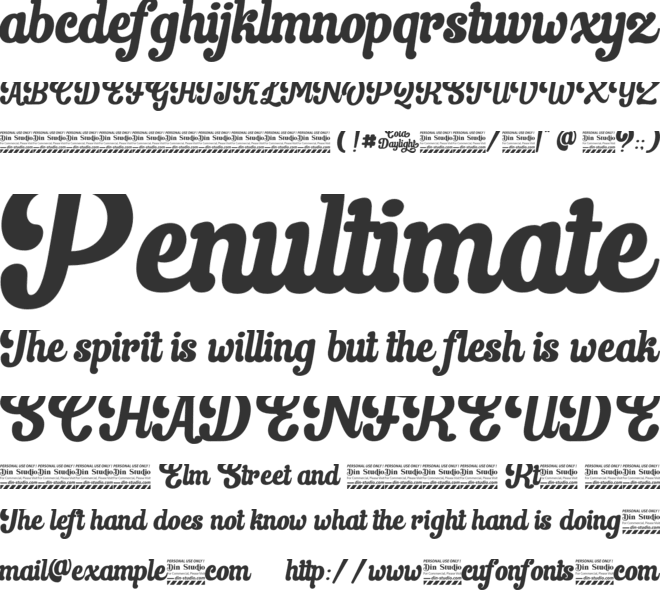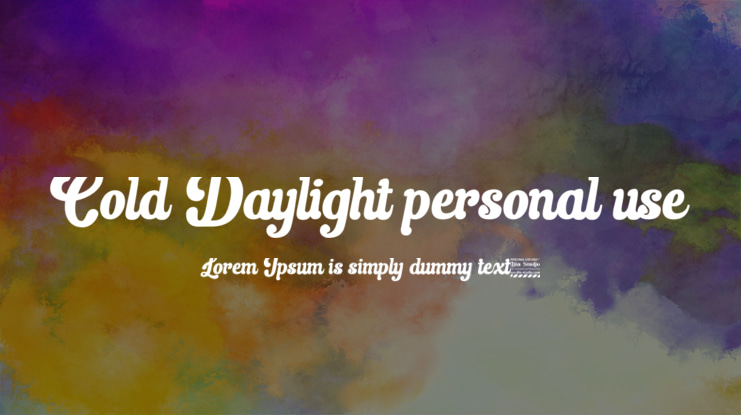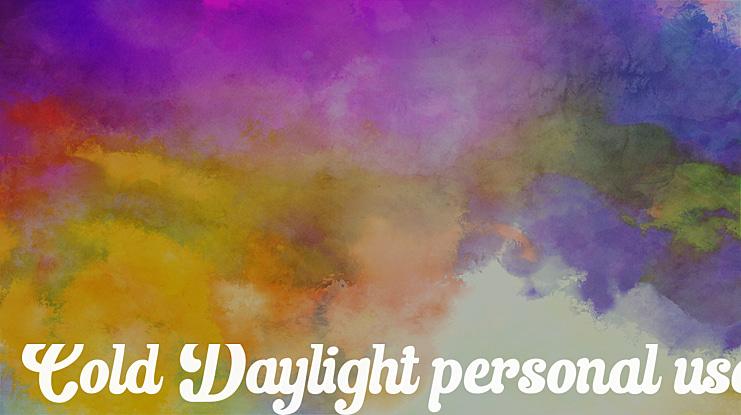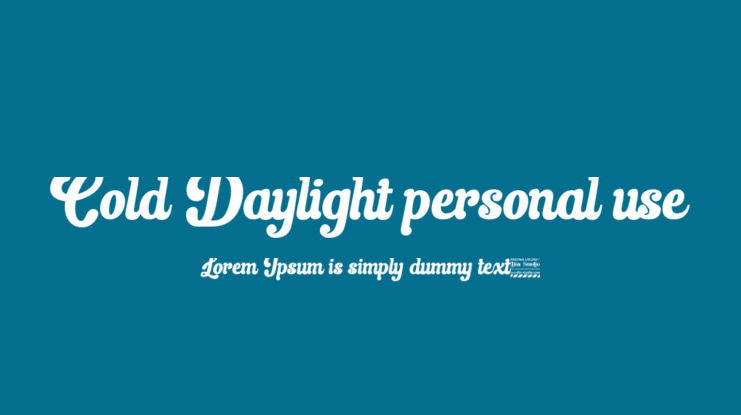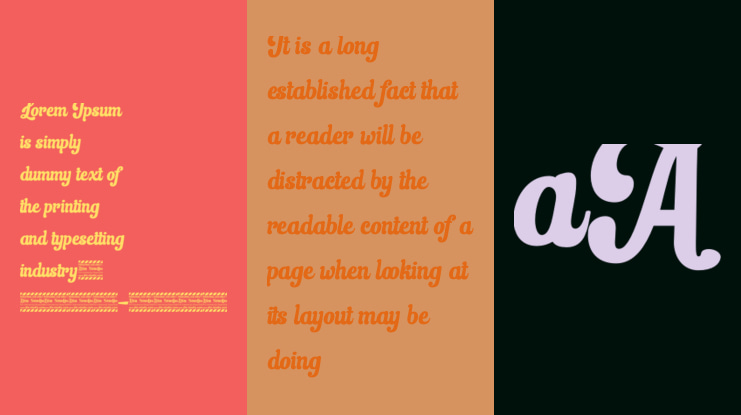
Cold Daylight is a display font designed to bring your branding to life and add a touch of playfulness, cheerful, and style. We are hoping that through this font, you can maximize your designs! In turn, you’ll communicate the perfect idea to your audiences or clients. The best choice for branding projects, book/magazine cover, fashion designs, quotes, packaging, or even as a stylish text overlay to any background image.